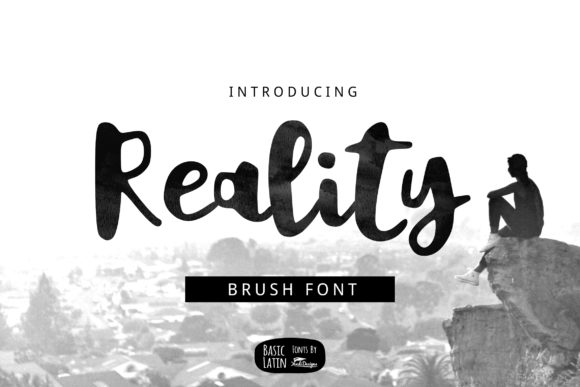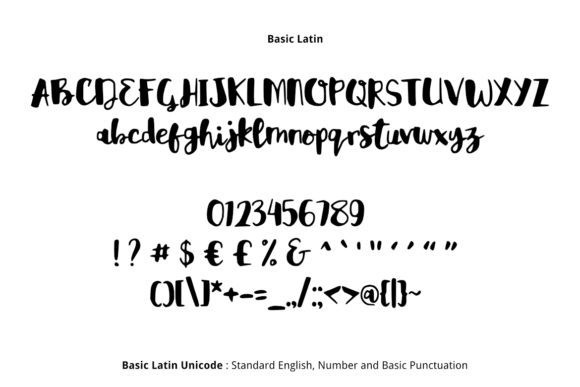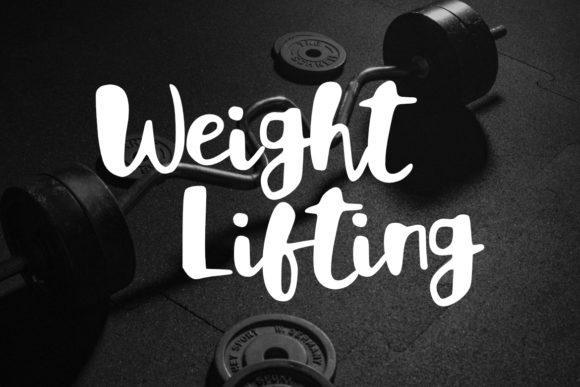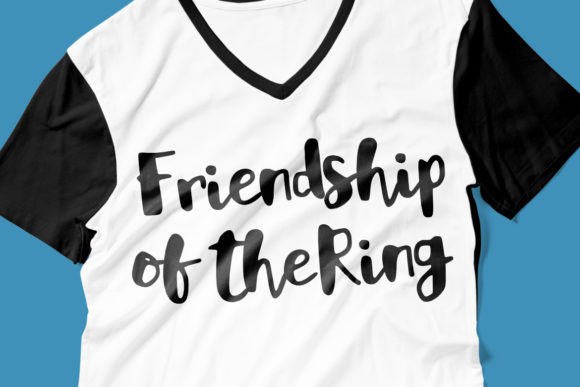
HomeScript FontsReality Font Script Fonts Reality Font FacebookXPinterestWhatsApp Reality Font Poster 2 Reality Font Poster 3 Reality Font Poster 4 About Reality Font Reality is a simple, yet playful script full of authenticity. Get inspired by its personal charm! DOWNLOAD NOW People also explored Delight Koala Kisses Font Boho Signature Miracella Font Anittabella Font Easter Mandala Signature Font Autumn Font Central Font 312 0 TagsReality Font Previous articleBlack Sail FontNext articleRainy Day Font LEAVE A REPLY Cancel reply Comment: Please enter your comment! Name:* Please enter your name here Email:* You have entered an incorrect email address! Please enter your email address here Website: Save my name, email, and website in this browser for the next time I comment. Personal Use Free Yukarimobile Personal Use Free Read more about this font Hanifah Personal Use Free Read more about this font Engine Personal Use Free Read more about this font Gila Personal Use Free Read more about this font BLOG To increase your work productivity, choose the most readable fonts. In today's fast-paced work environment, where digital communication and information consumption are integral to our daily routines, the choice of fonts can significantly impact... Free vs Paid Fonts: Why Investing in Premium Fonts Is Worth It Exploring Font Trends The 10 Best Handwriting Fonts to Add Personality to Your Designs